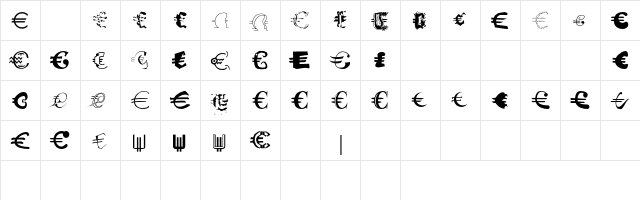
EuroDecoEF Two
EuroDecoEF Family
EuroDecoEF Two
Design Context for EuroDecoEF
EuroDecoEF is a composed and adaptable typeface that performs quietly and consistently across a wide range of design contexts.
Pro Tip: Use EuroDecoEF in both headline and body roles to test its range before committing to a single application.